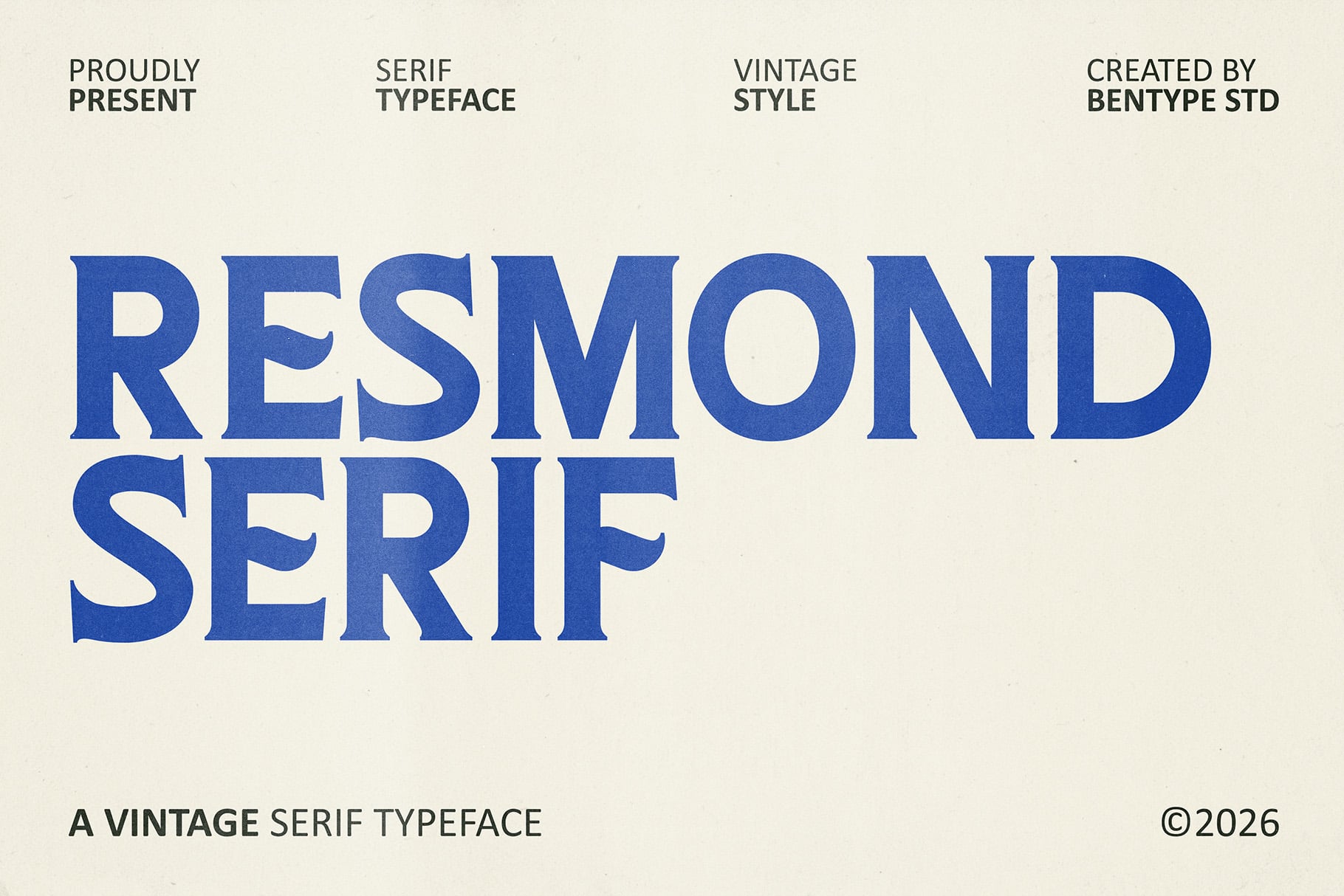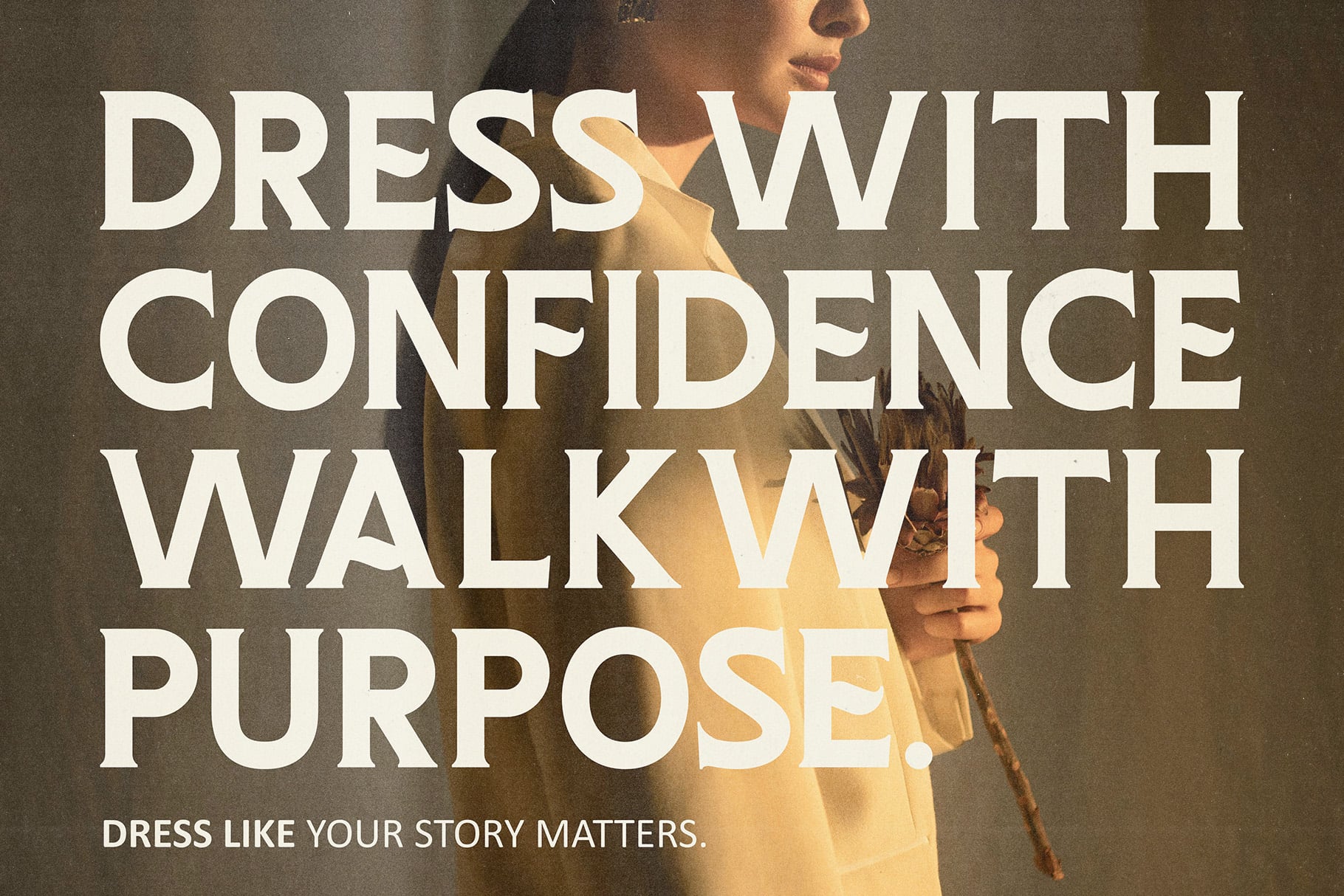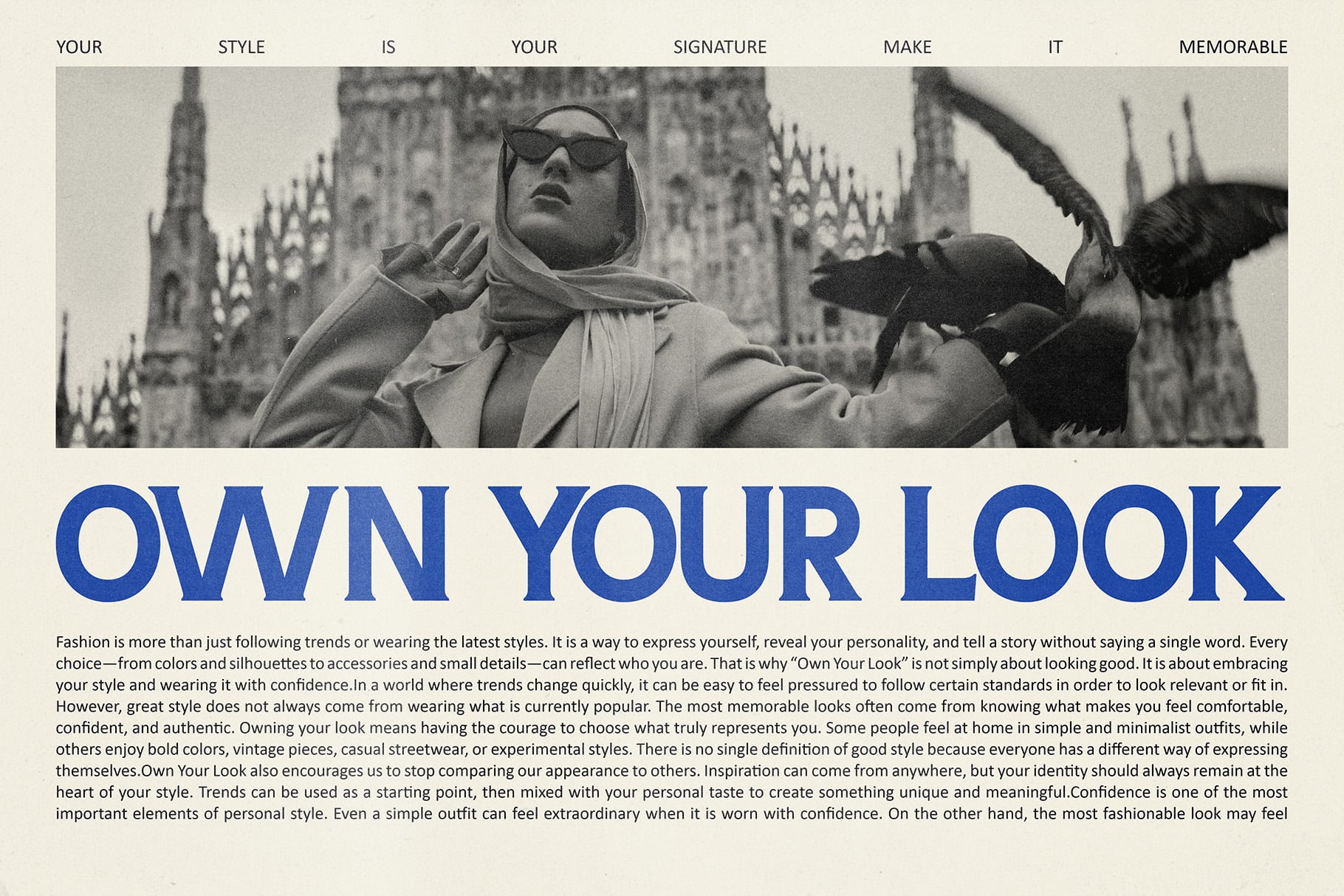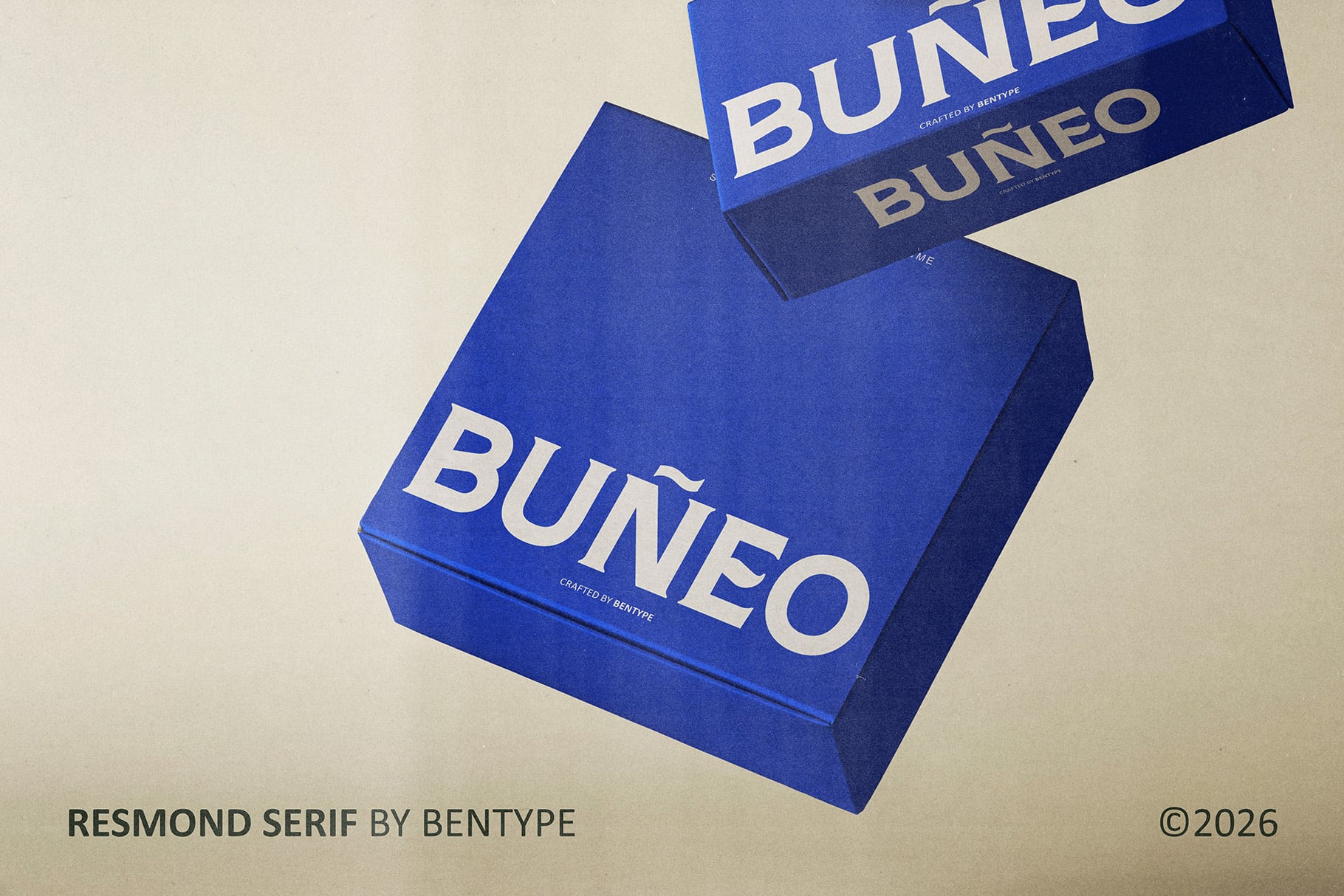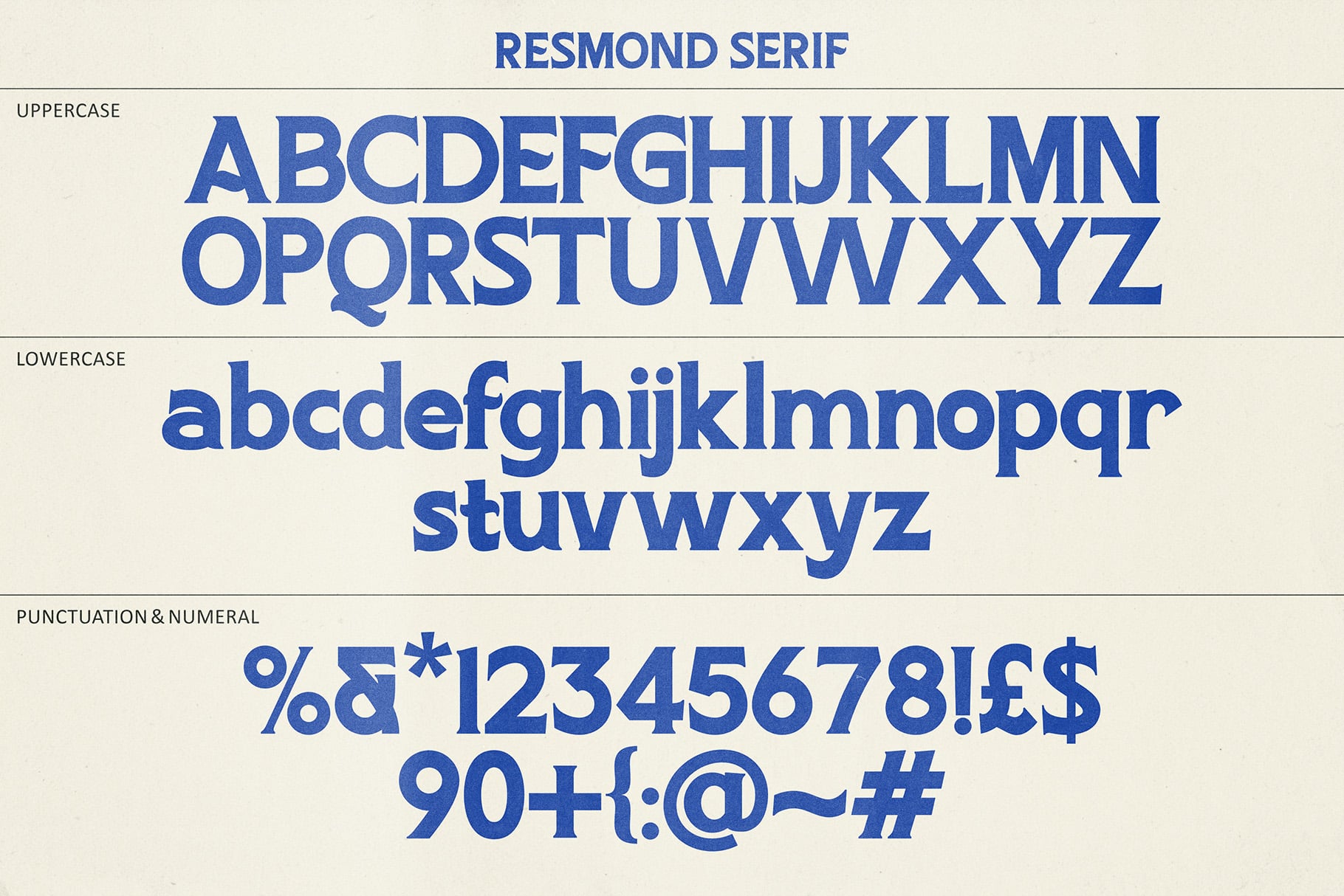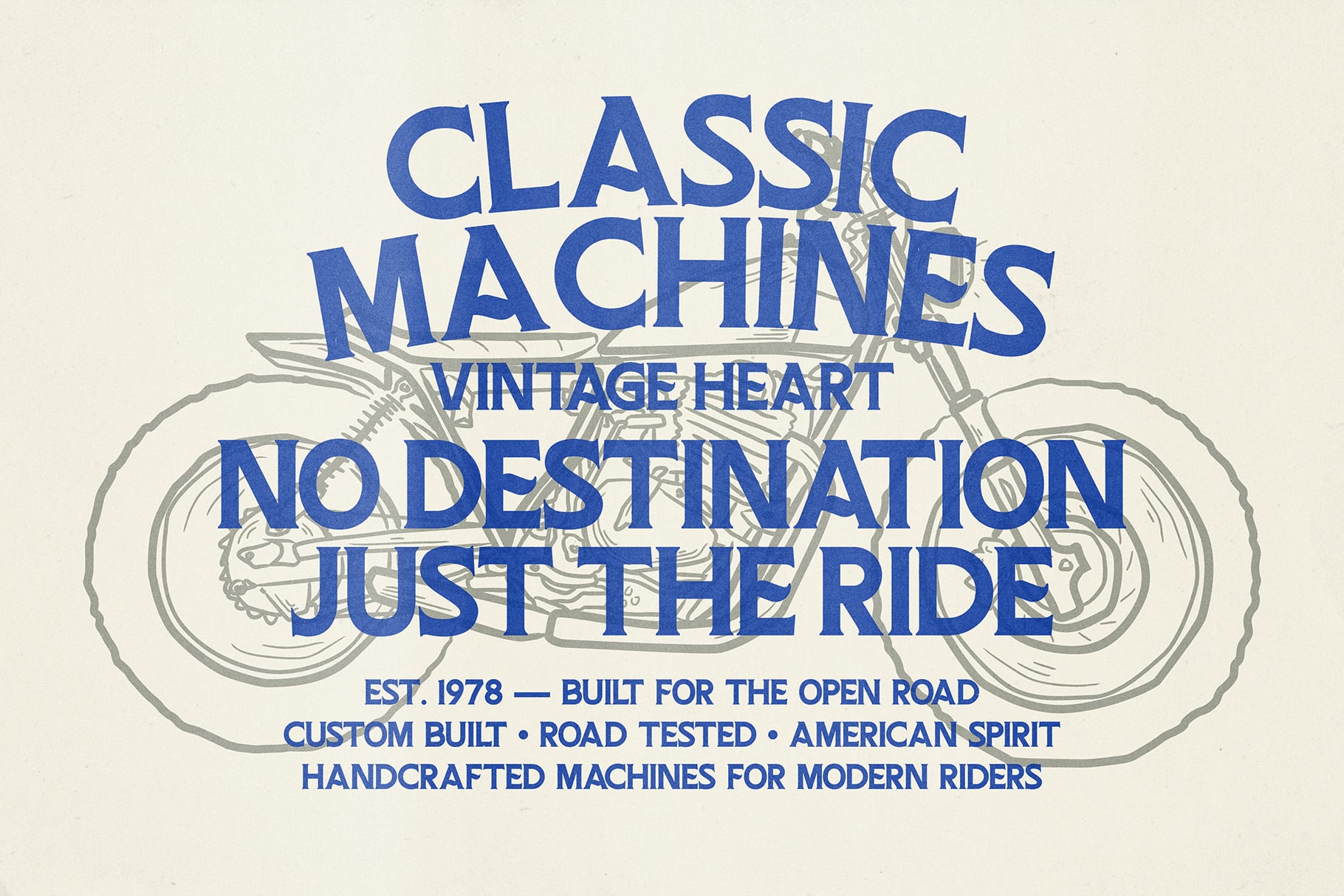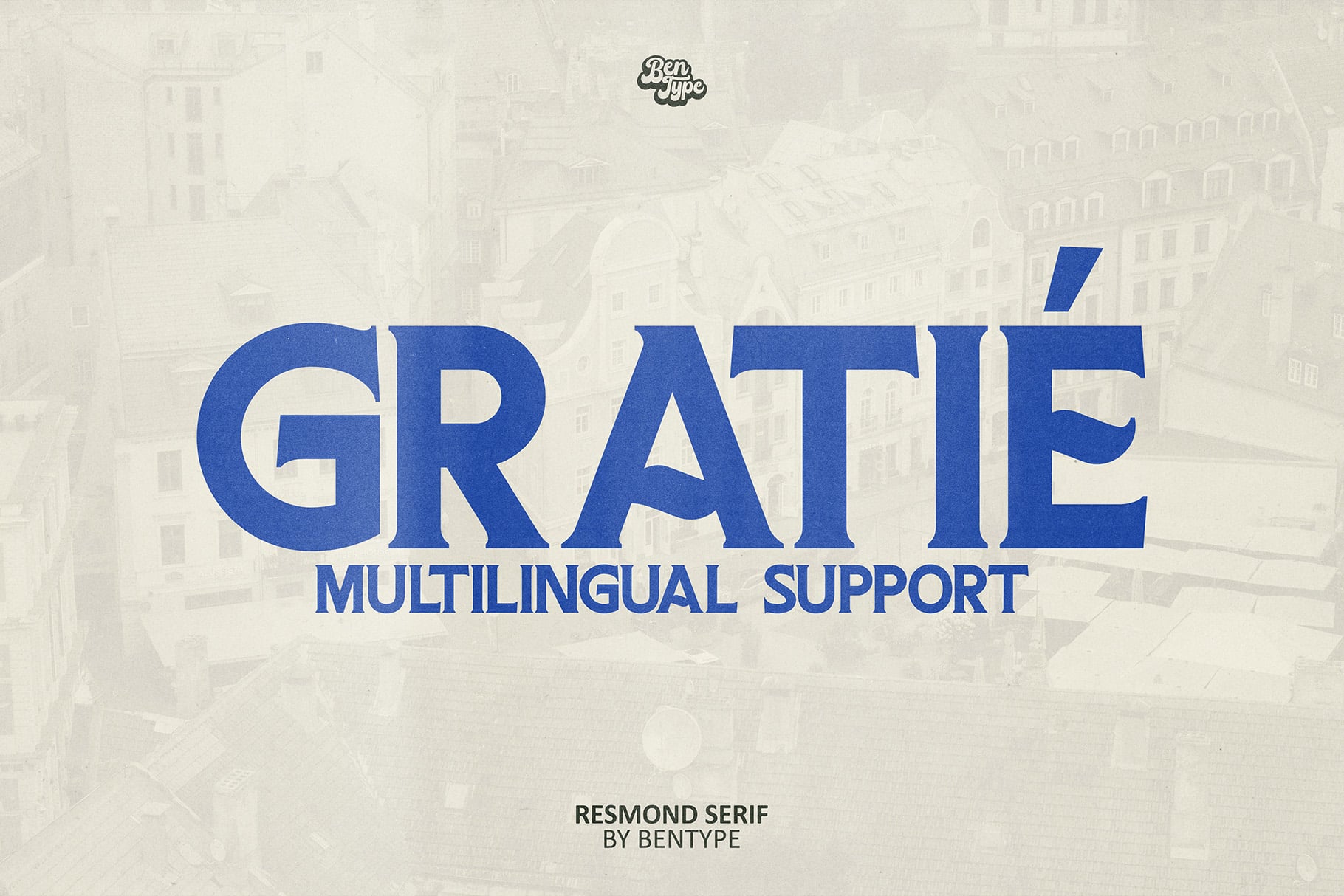
Resmond Serif is a bold vintage-inspired typeface that combines classic serif elegance with strong, expressive letterforms. Featuring distinctive curves, chunky proportions, and subtle retro..details, it delivers a confident and timeless character while remaining highly readable.
Designed to make a statement, Desmond Serif is perfect for branding, logos, packaging, editorial layouts, posters, headlines, apparel, merchandise, and vintage-inspired designs. Its unique personality adds a touch of nostalgia and sophistication, making every word feel bold, memorable, and full of character.
Upper Case & Lower Case
Numbers
Punctuation
Multilingual Support